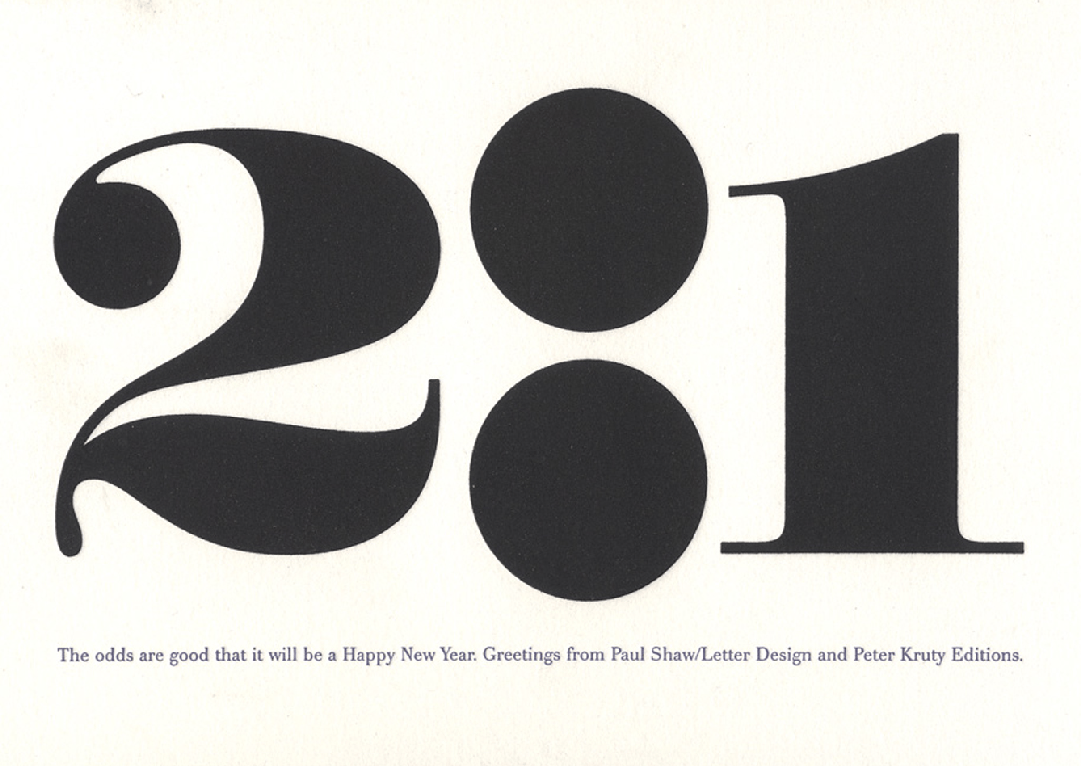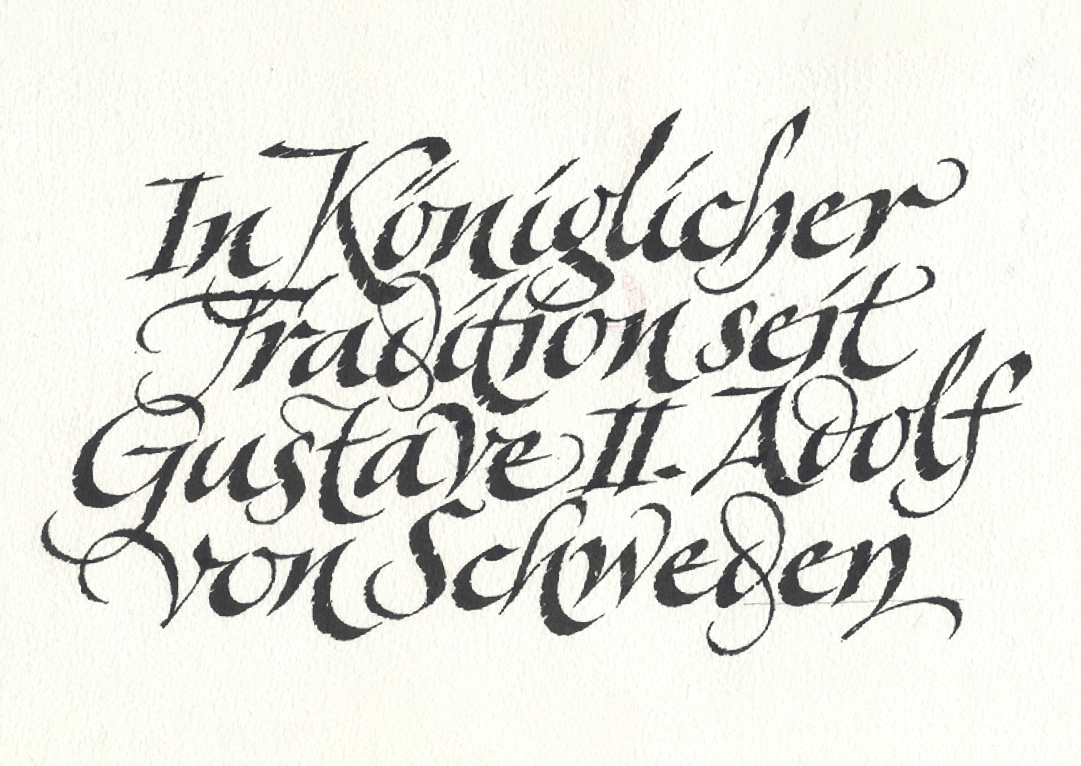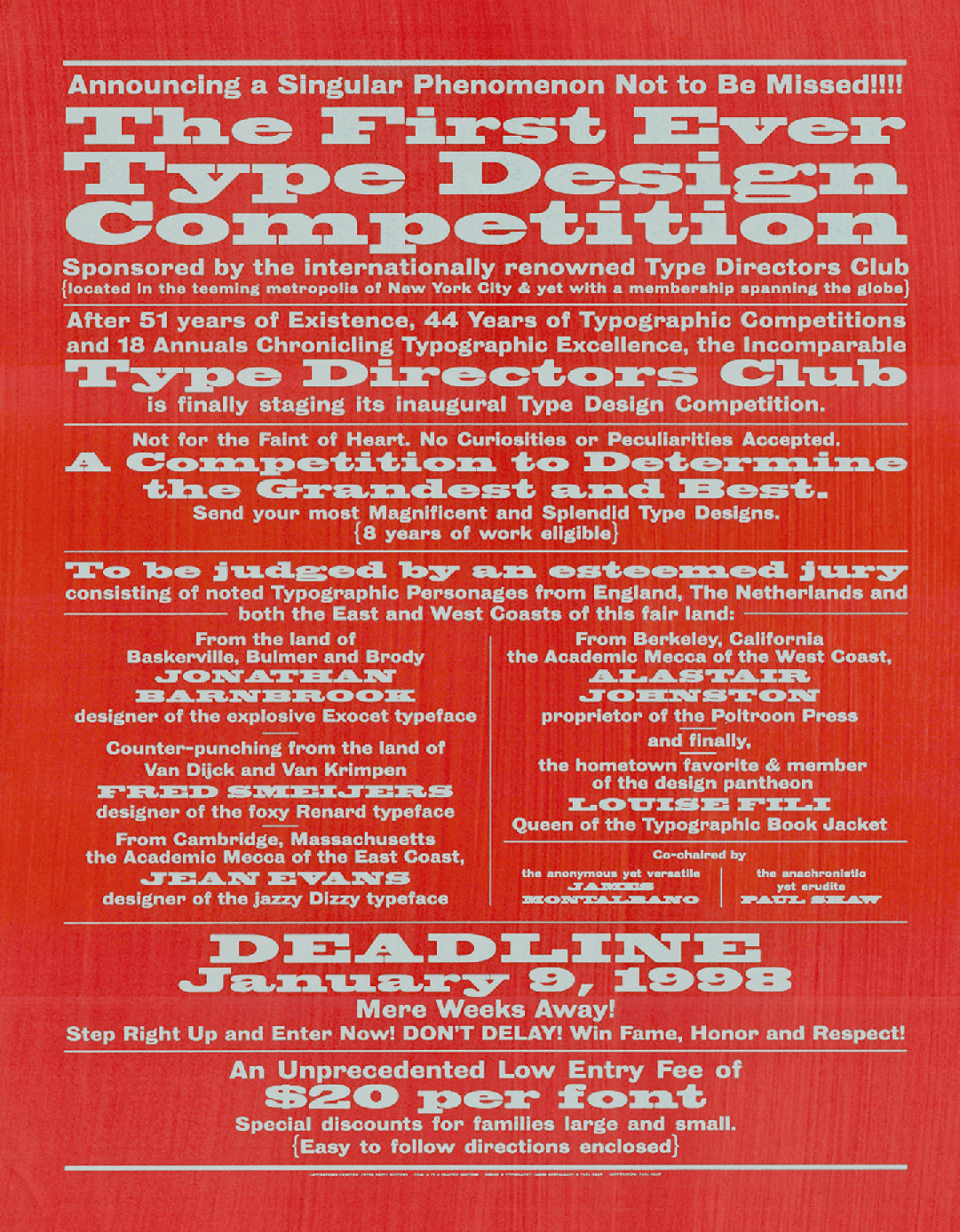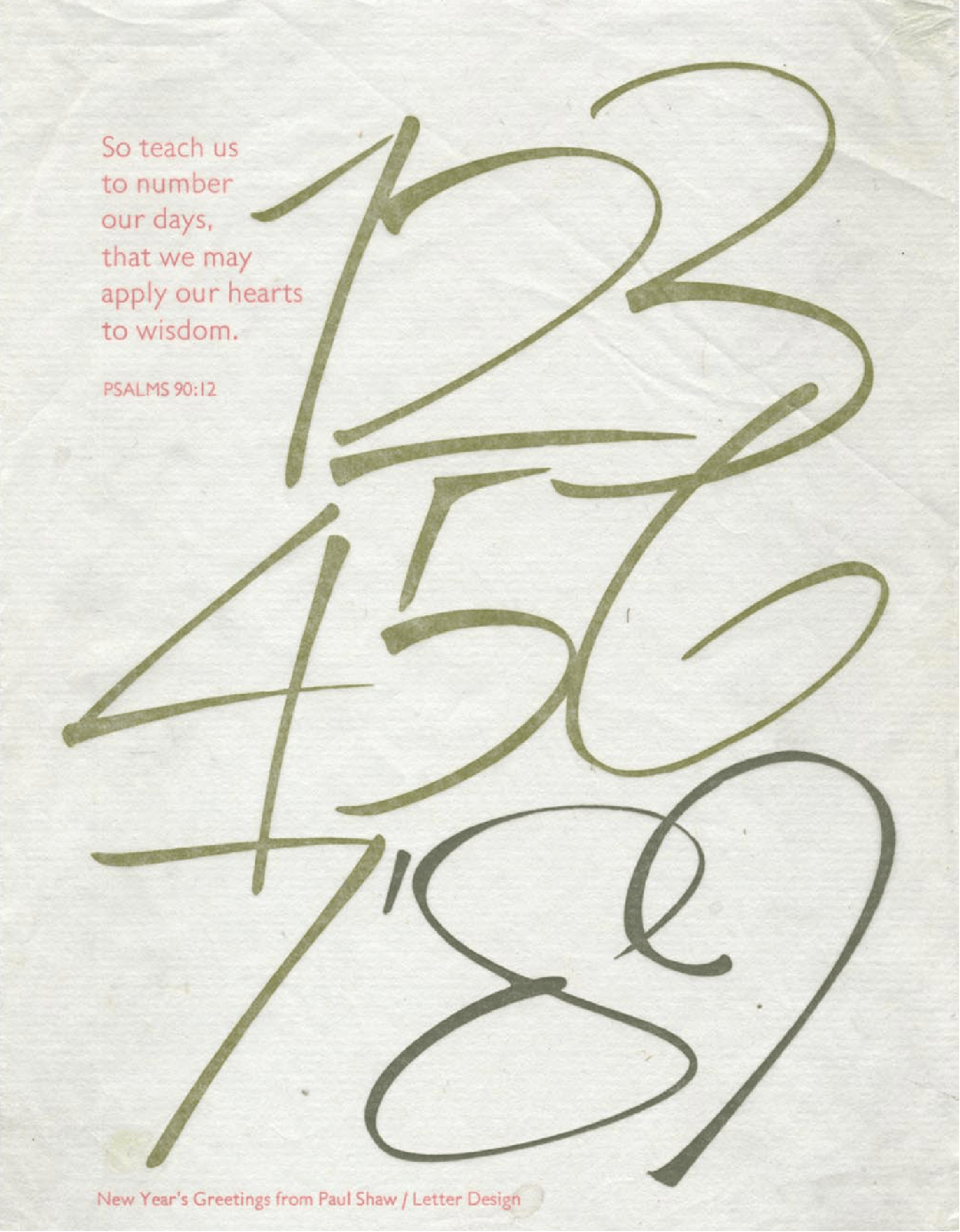
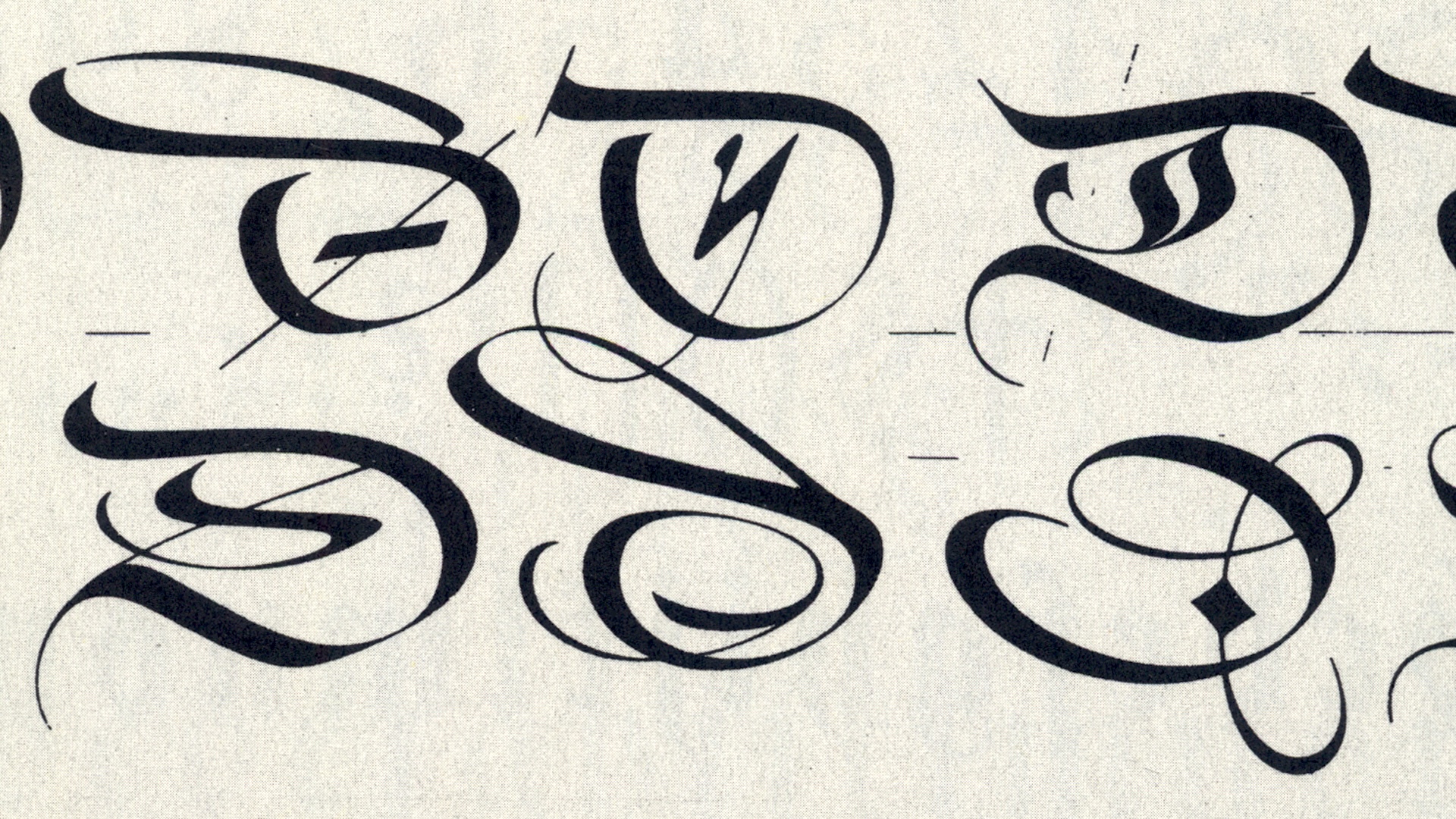
A kaleidoscopic collage of inscriptions, calligraphy, lettering, typefaces, signage, and typography that have inspired and influenced my work as a designer and my areas of interest as a design historian. The work is wide-ranging and eclectic. It includes Morris Fuller Benton, Cassandre, W.A. Dwiggins, Nicolete Gray, Rudolf Koch, Koloman Moser, Bartolomeo Sanvito, and Jan Tschichold.
Paul Shaw is a calligrapher, typographer, type designer, graphic designer, design historian, and type historian. He has taught most of those subjects for various New York City universities and art schools since 1980. He has also taught the history of type for California Rare Book School. Paul was a partner in LetterPerfect, one of the earliest digital type foundries. Since 1996 he has led or co-led twelve editions of the Legacy of Letters tours and workshops in Italy. For the Type Directors Club, TypeCon, and other organizations he has conducted lettering walks in eighteen American and Canadian cities. He is the author of Revival Type, Helvetica and the New York City Subway System; the co-author of Blackletter: Type and National Identity; and the editor of The Eternal Letter: Two Millennia of the Classical Roman Capital.